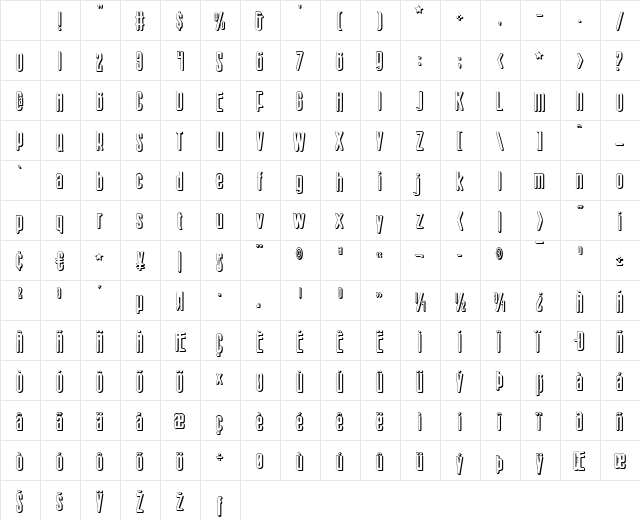
Complete Sister Europe Shadow glyph index. Displaying only characters natively supported by Sister Europe Shadow font.
Sister Europe is built around its visual character rather than neutral utility - its distinctive forms are designed to make an impression at display sizes.